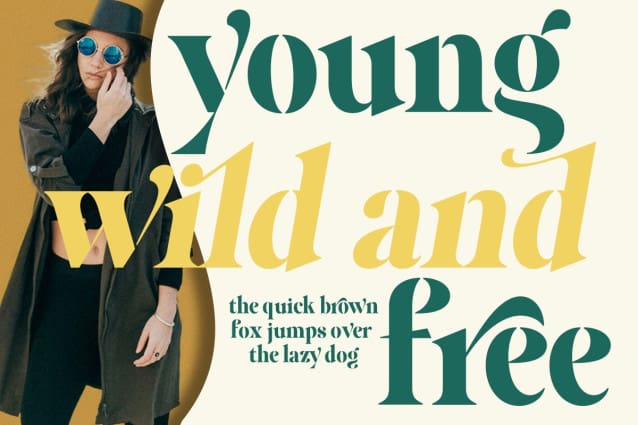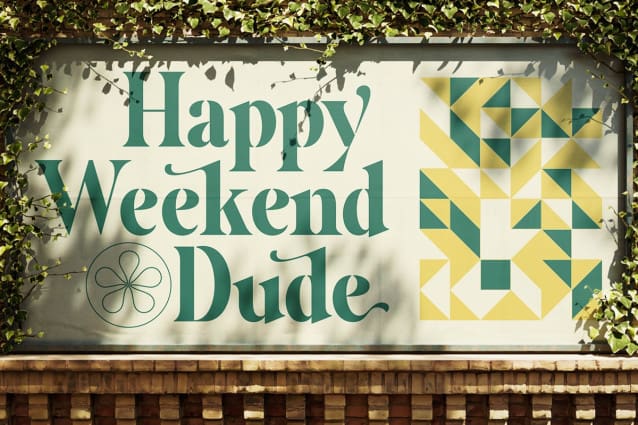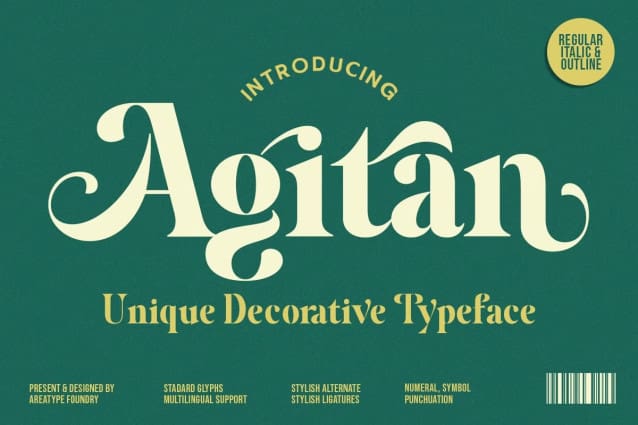
Agitan Font
Agitan Font is a serif display font that has a unique, feminine and elegant style. Perfectly fit for branding, logo, wedding things, greeting cards, fashion, lookbook, marketing promotion, anytime you want to look fancy elegant but still casual.